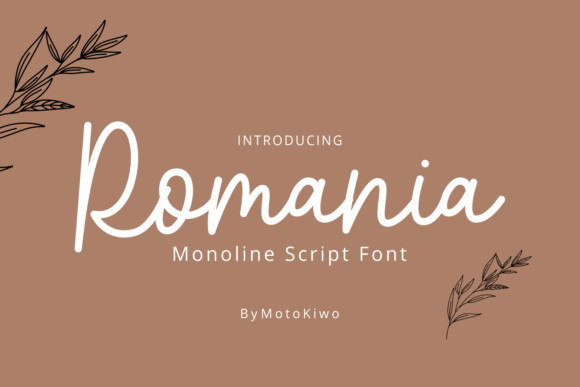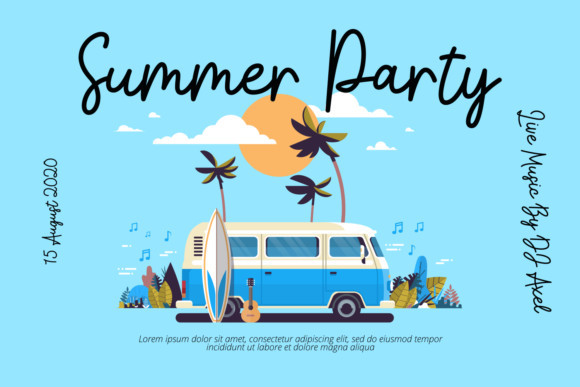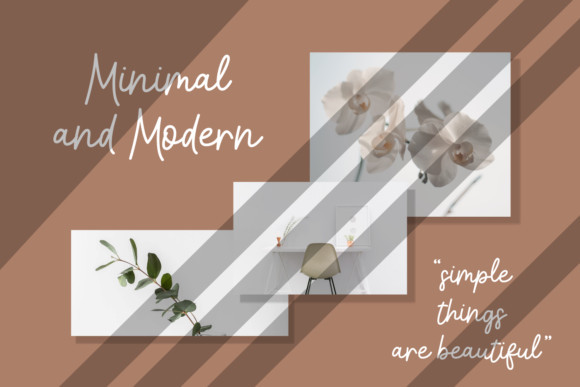
Romania Font
Romania is a sweet and a bit quirky handwritten font. Fall in love with its incredibly versatile style and use it to create gorgeous invitations, beautiful stationary art, eye-catching social media posts, and much more!